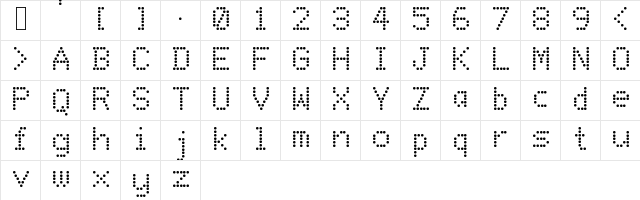
The Sinfles 86>98 Regular
Design Context for The Sinfles 86>98 Typeface
The Sinfles 86>98 is a composed and adaptable typeface that performs quietly and consistently across a wide range of design contexts.